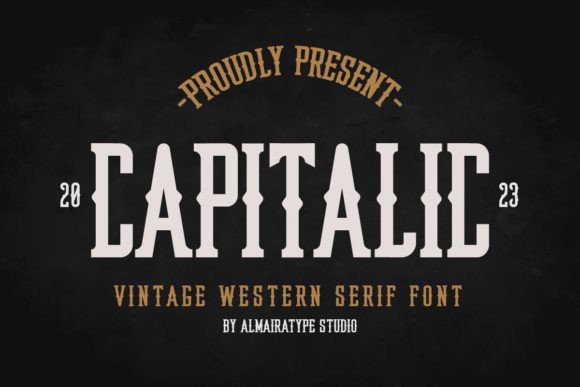
Introducing Capitalic Font, the ultimate choice for those seeking the best font style for their brand name. Created by the esteemed Almairatype Studio, this font is sure to captivate and inspire.
Immerse yourself in the wild and untamed essence of the American Wild West with Capitalic. With its robust and stylish slab serif design, this font exudes a sense of strength and boldness. The square serifs and confident lines give your projects a rugged and western flair that is unmatched.
Whether you're looking to create attention-grabbing headlines, eye-catching signage, or unforgettable branding, Capitalic is the font that will elevate your designs to new heights. Its versatility allows it to seamlessly blend with any project, while still maintaining a clean and modern look.
Embrace the frontier spirit and let Capitalic be the driving force behind your brand's story. Its captivating presence will leave a lasting impression on your audience, evoking emotions of adventure, authenticity, and innovation.
With Capitalic, your brand will stand out from the crowd, making a statement that cannot be ignored. Its keyword-rich nature ensures that your brand name will be remembered and associated with excellence.
Don't settle for ordinary fonts when you can have the extraordinary. Download Capitalic Font today and unlock the true potential of your brand. Let the power of this font guide you towards success and set your brand apart in a visually saturated world.
Experience the thrill of the Wild West, fused with modern sophistication. Capitalic Font is the perfect choice for those who dare to be different and crave a font that speaks volumes. Get ready to make a statement that resonates with your audience and leaves a lasting impression.